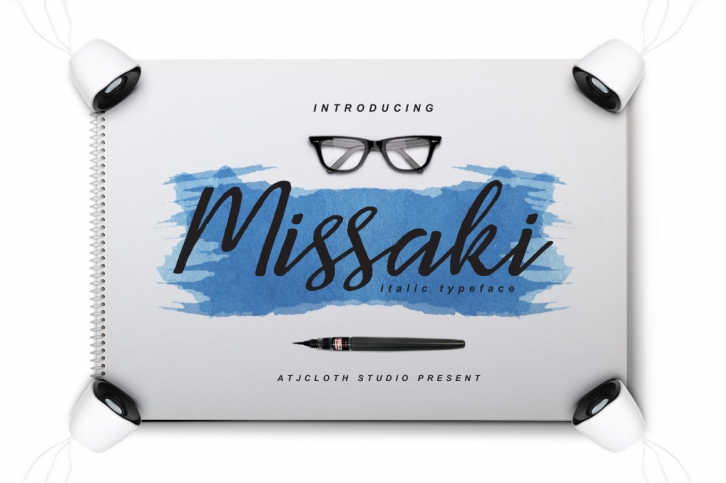
Missaki Typeface Italic a handmade font awesome, new fresh & modern script with a calligraphy style. Can used for anything from promotional material and handwritten quotes, to product packaging, labels,logo newsletters, posters, merchandise and branding projects.
Missaki Typeface Italic supports and includes :
• Uppercase, Lowercase, Number, Punct, Ligature